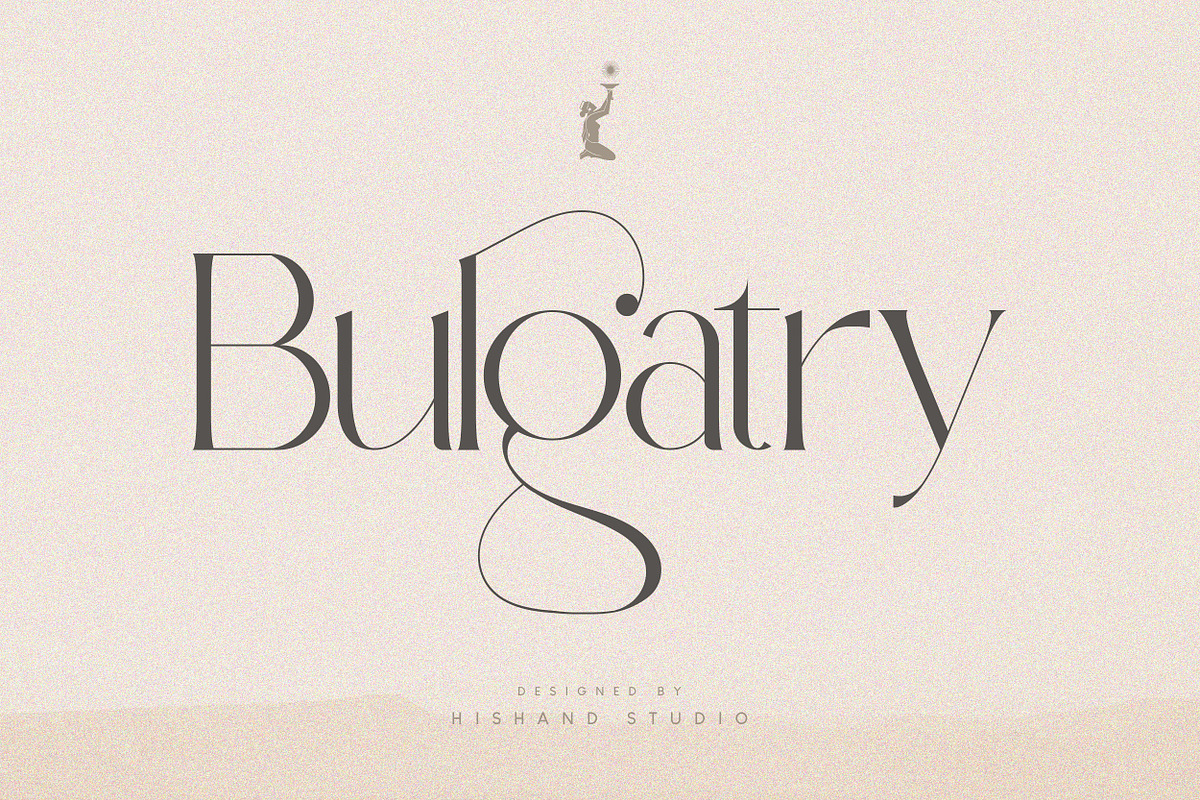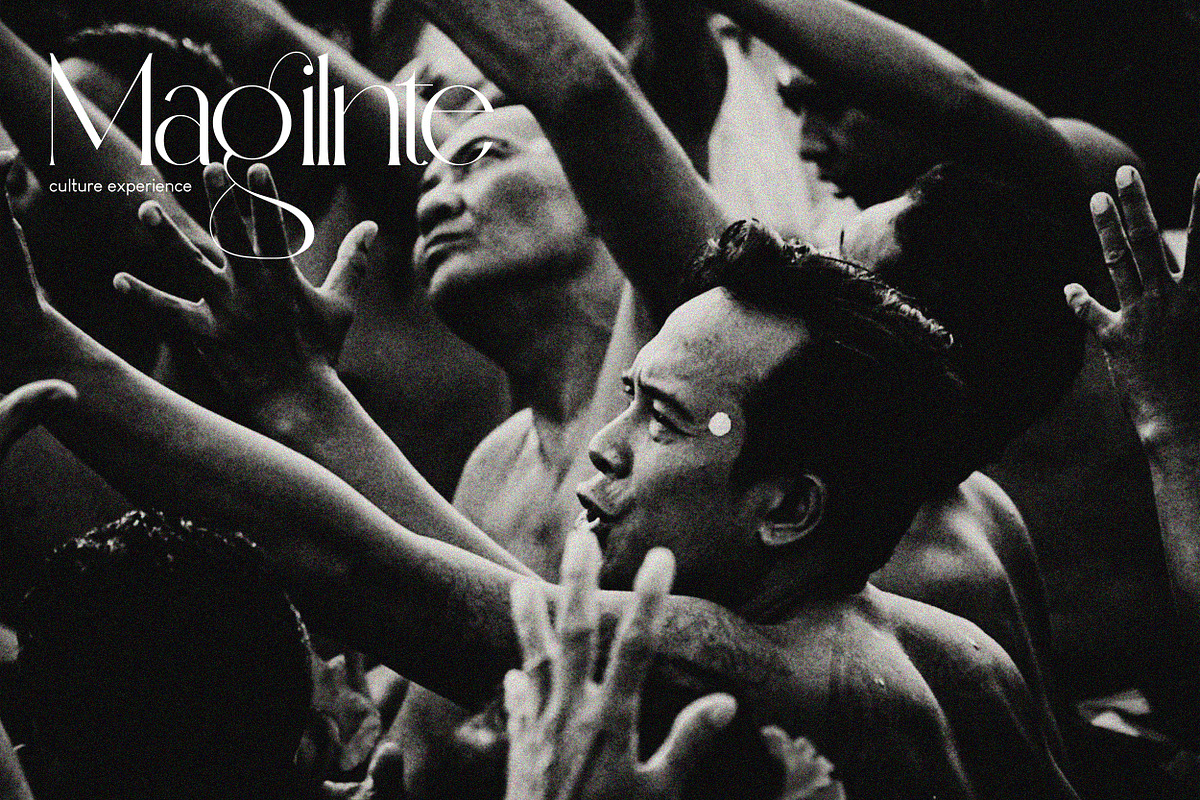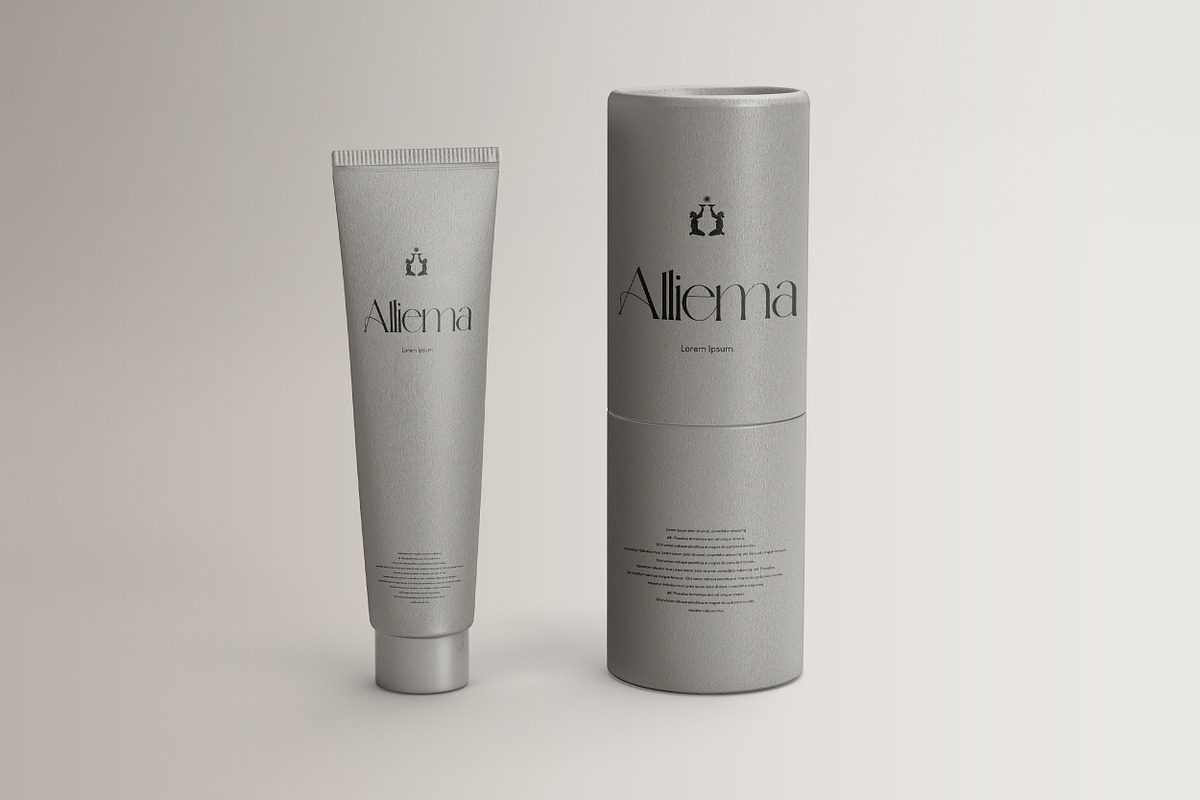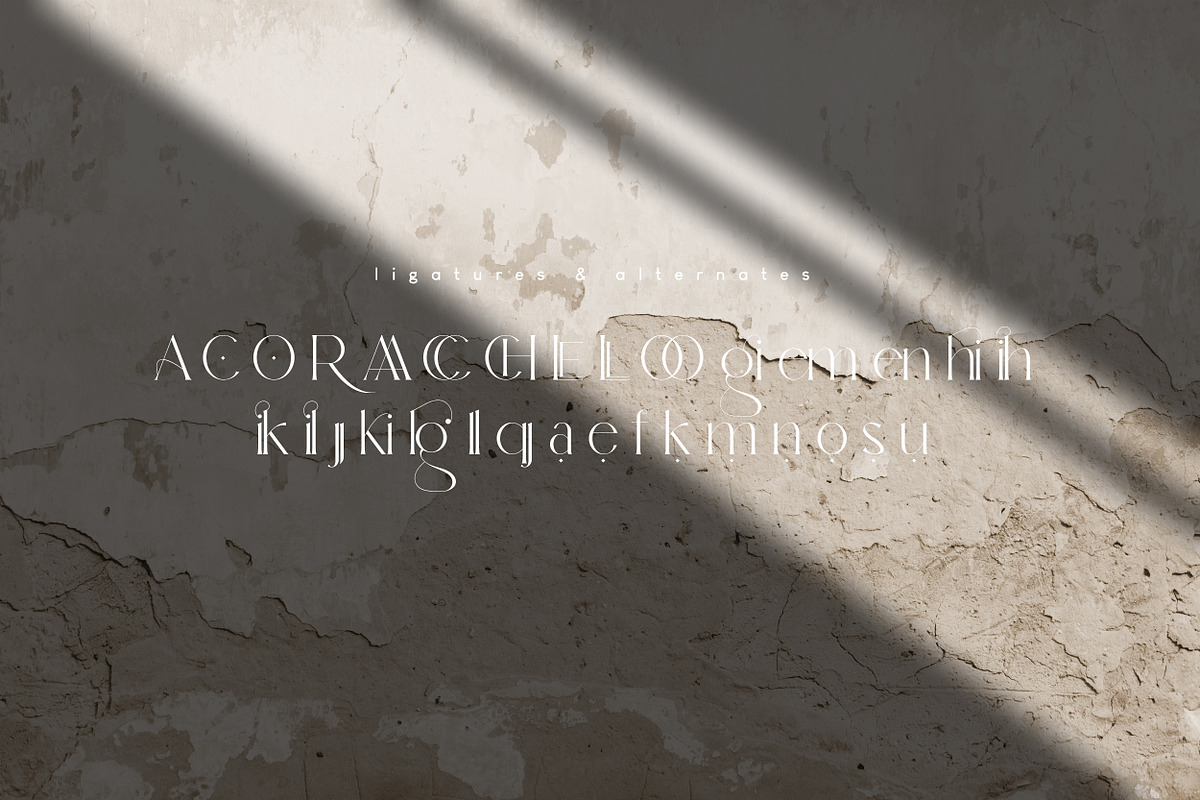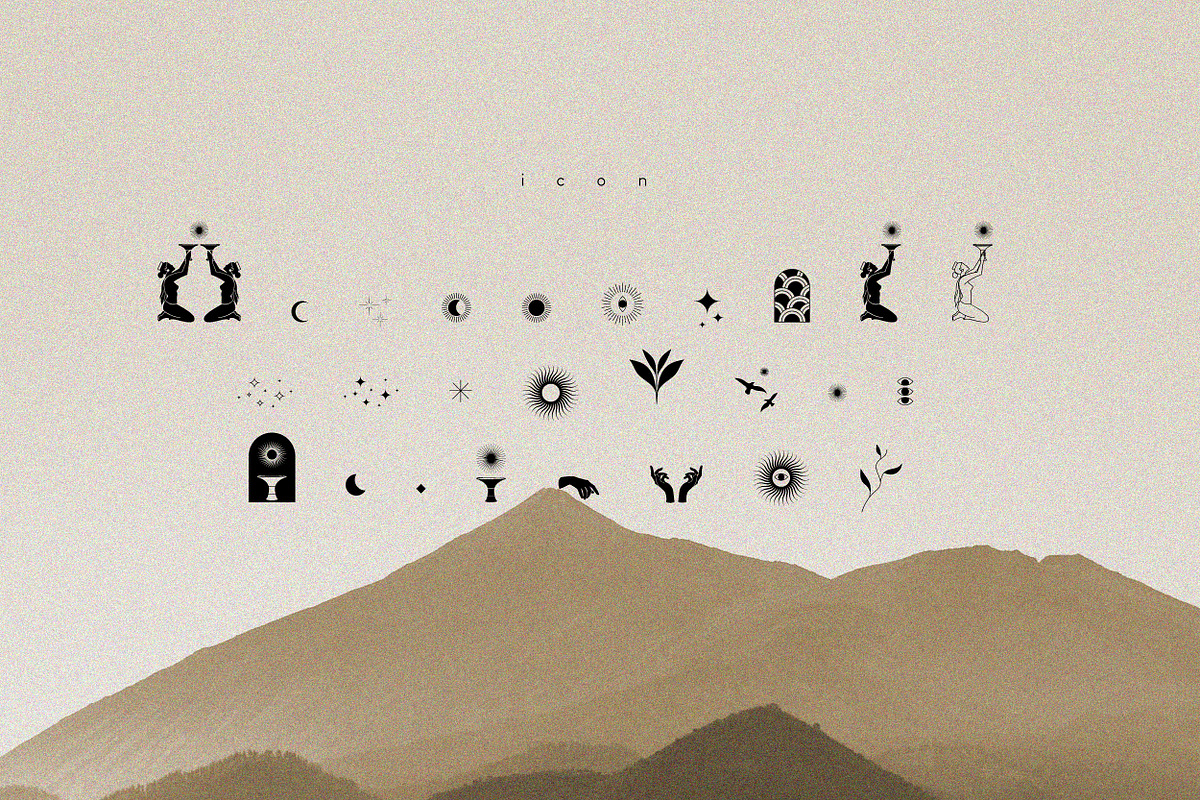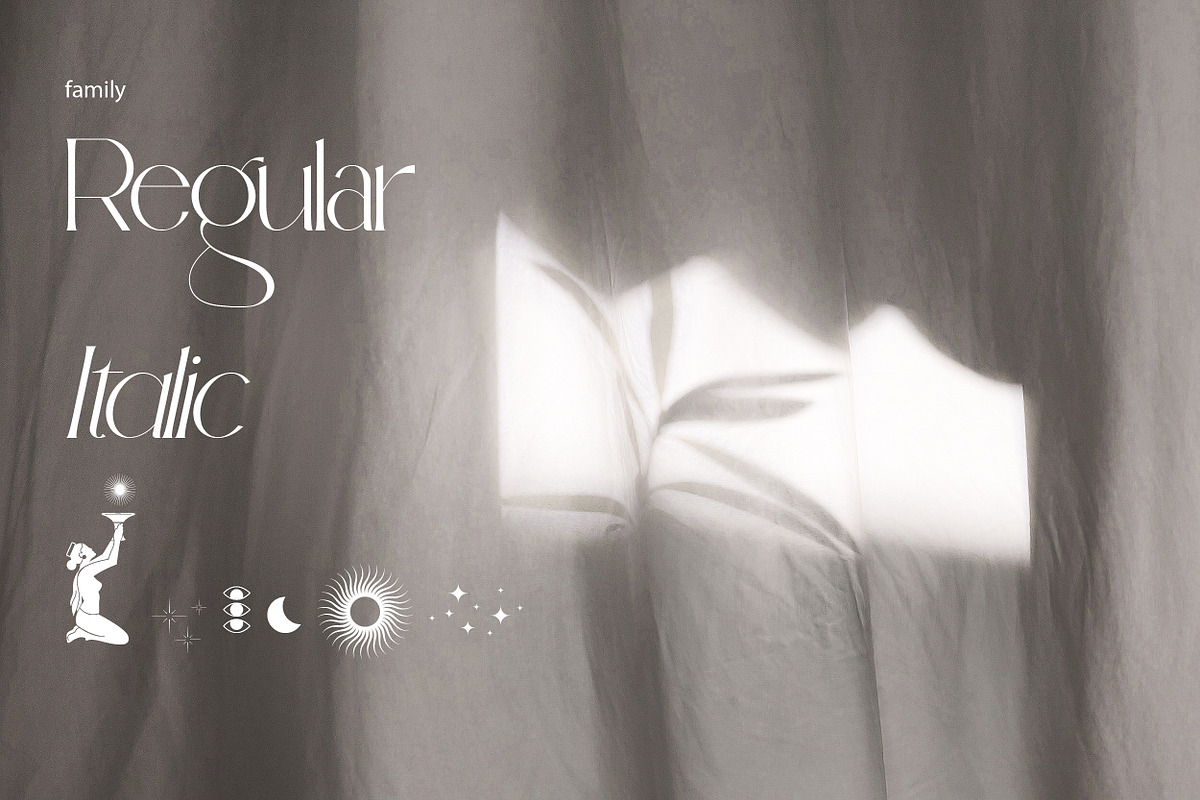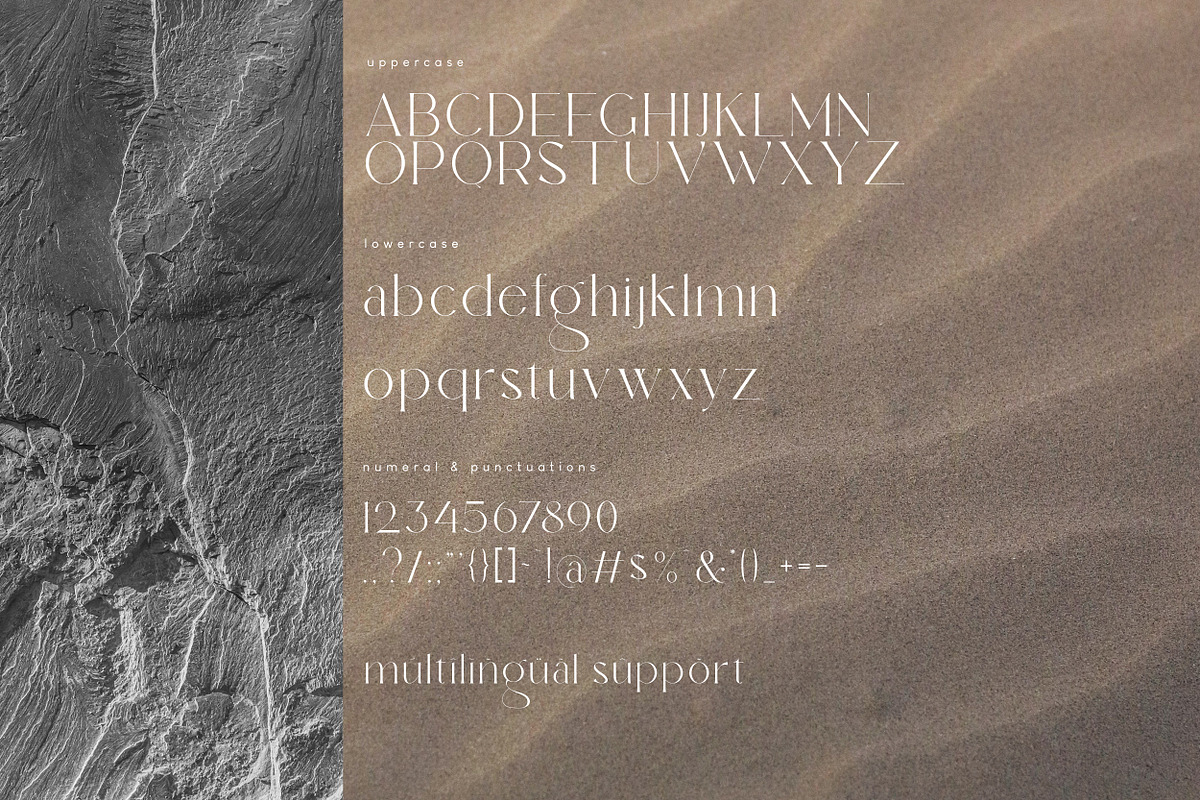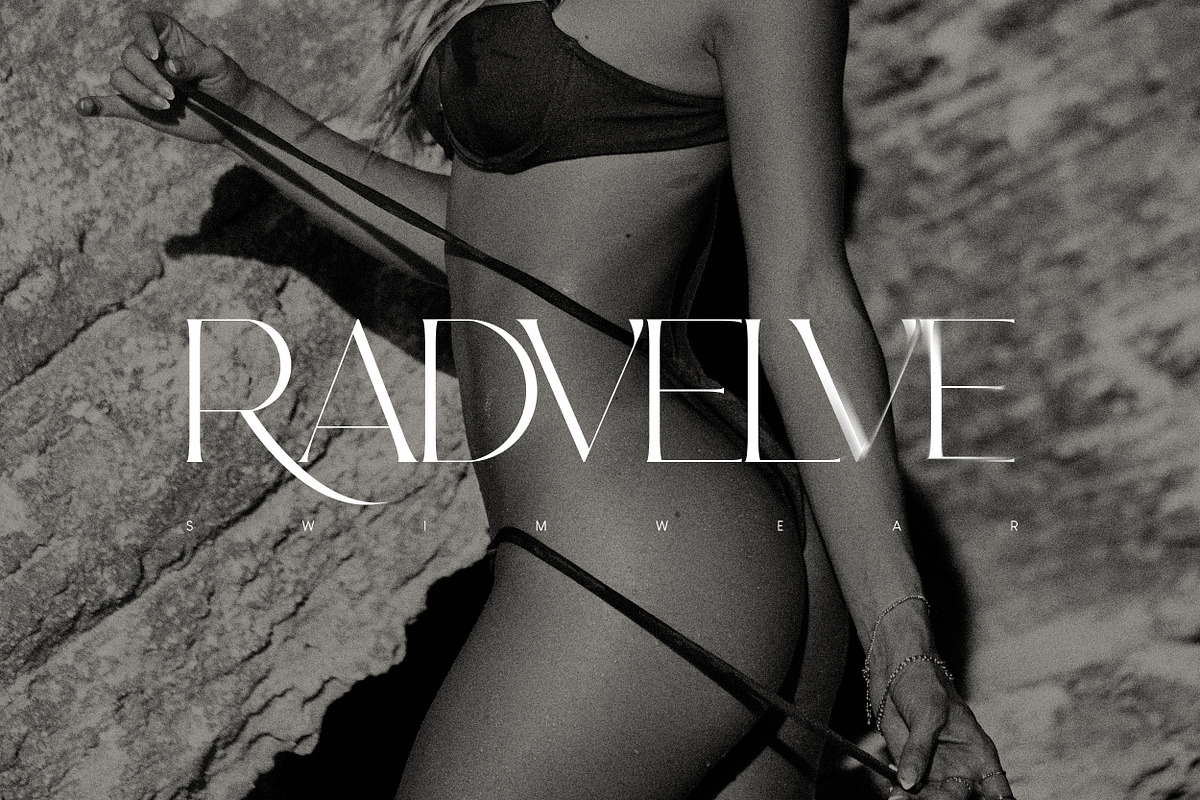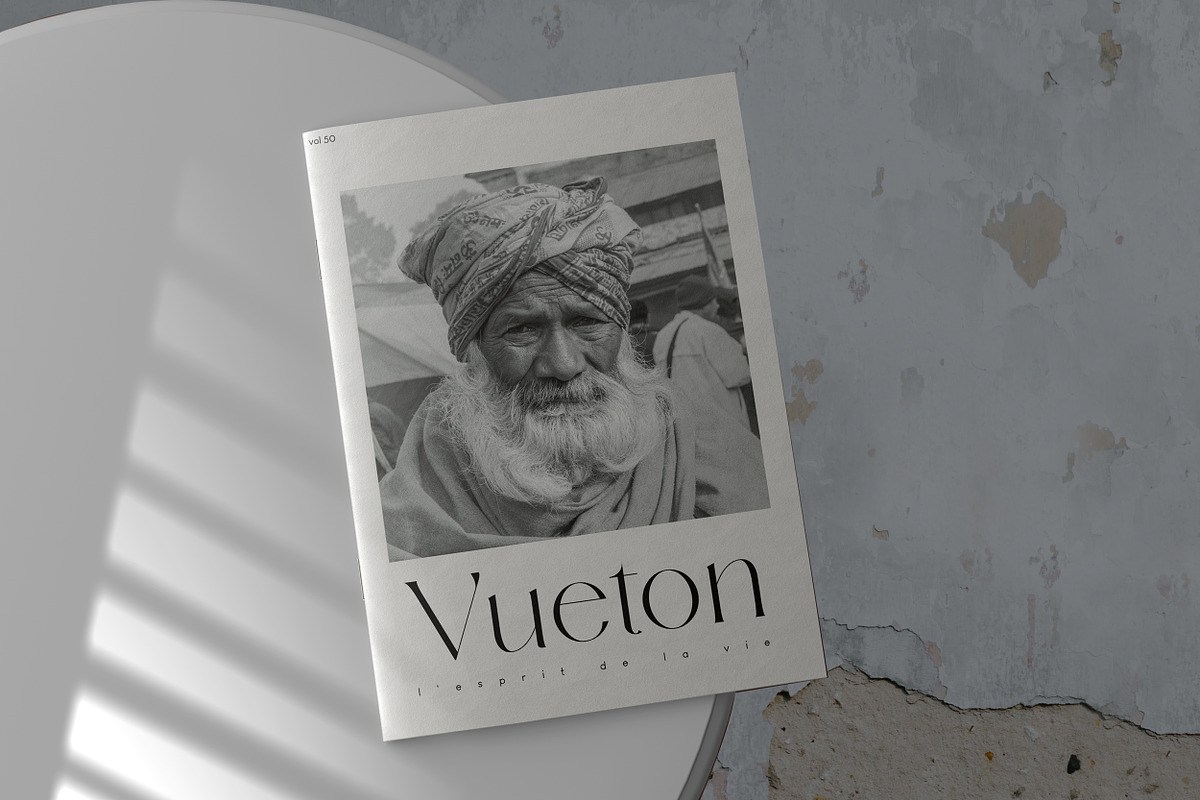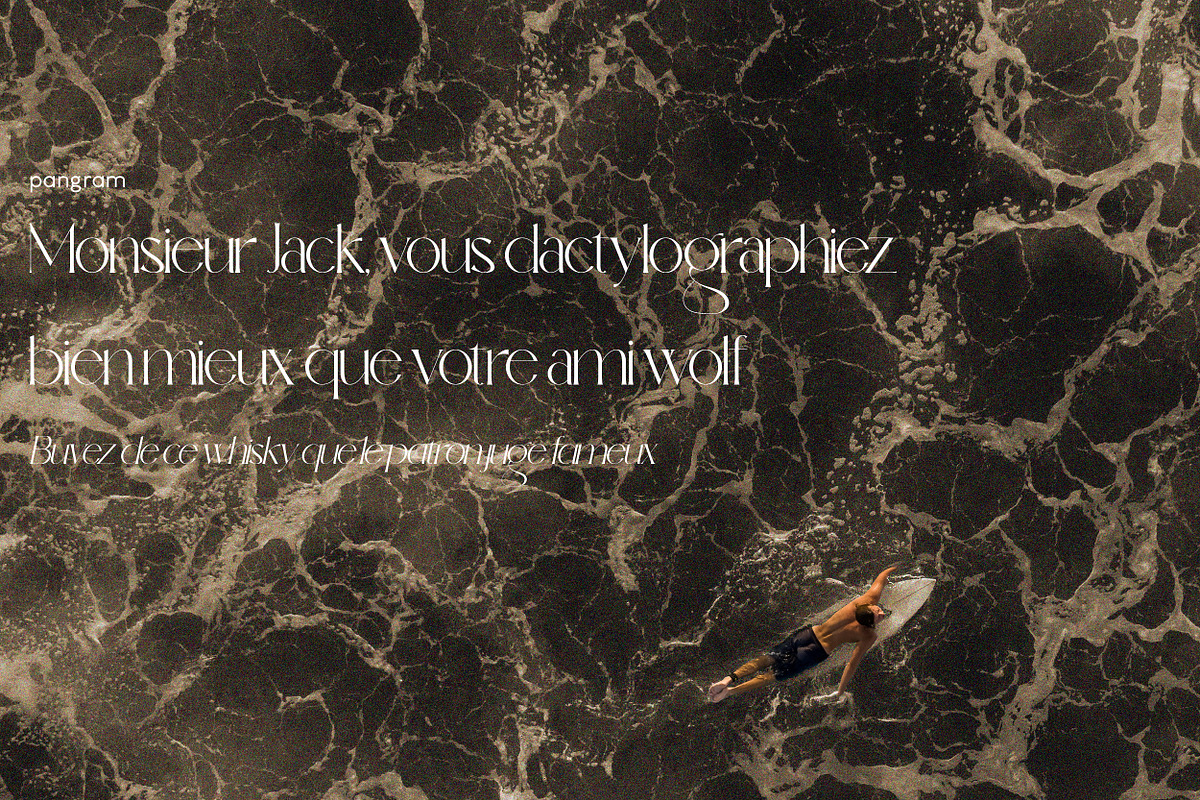
Bulgatry Elegant Serif
Elegant look font of Bulgatry. a modern serif font family that drawn inspiration from the elegant of Bali, classy, modern but classic at the same time. just have a look at this beautiful handcrafted serif typeface. Perfect logo, branding, invitations, stationery, wedding designs, social media posts, and much more.
Complete with
- alternates
- regular
- italic
- icon
- kerning
- multilingual support